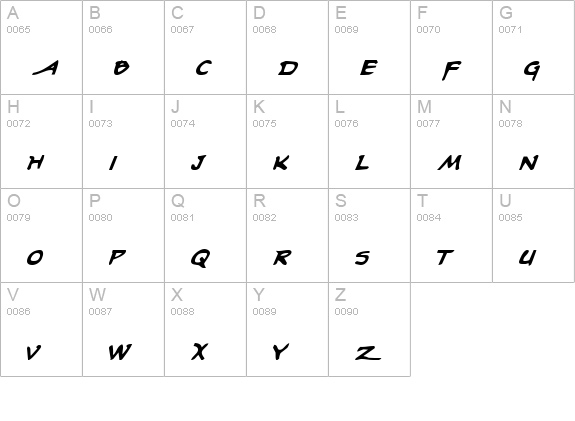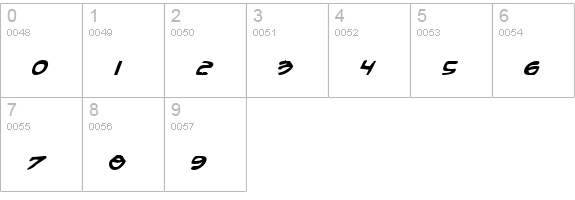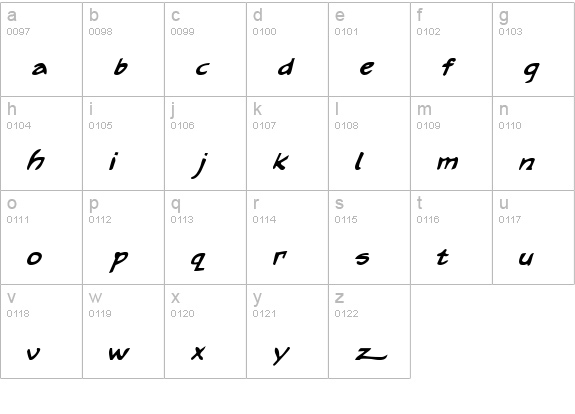
Arilon Bold Italic is a strong, high-contrast, italic variant in the Arilon typeface family \xE2\x80\x94 well suited to headlines, attention-grabbing titles, and strong calls-to-action.
Arilon Bold Italic is a striking and versatile font that exudes confidence and elegance. The bold weight combined with the italic style creates a dynamic and modern look, perfect for making a statement in various design projects. Whether used for headlines, logos, branding, or editorial design, Arilon Bold Italic commands attention and adds a touch of sophistication to any layout. What sets Arilon Bold Italic apart is not only its bold and italic design, but also the fact that it is available for free download at FontsMarket.com. This means that you can easily access this high-quality font to enhance your creative projects without breaking the bank. With its sleek curves and strong presence, Arilon Bold Italic is sure to make a lasting impression on your audience. Elevate your designs with this eye-catching typeface today!